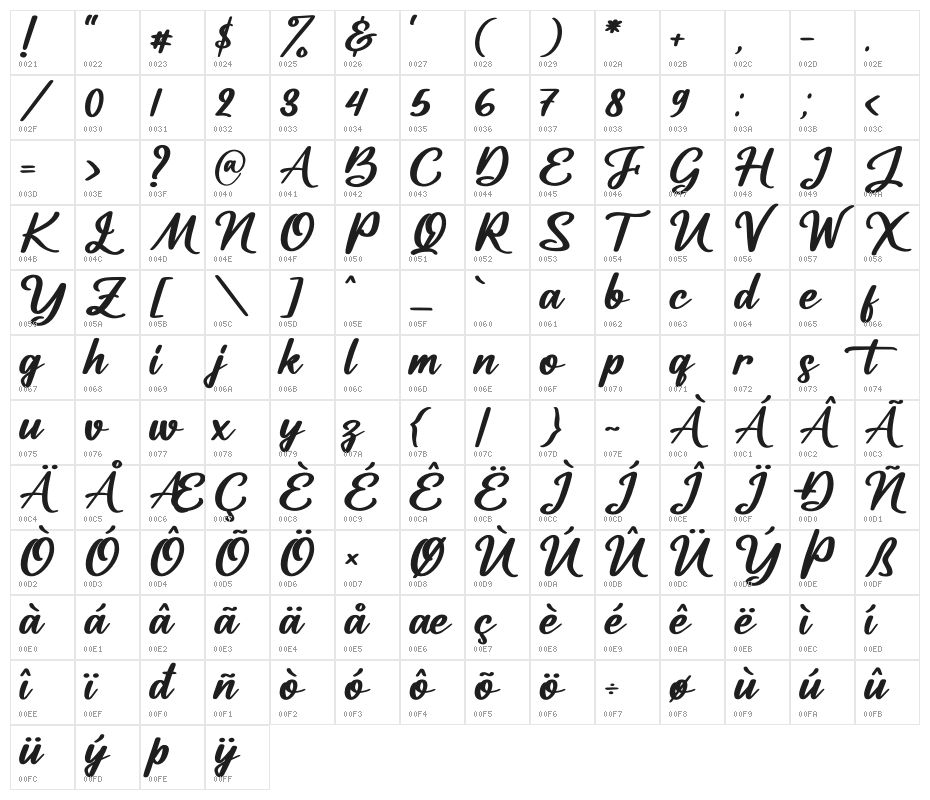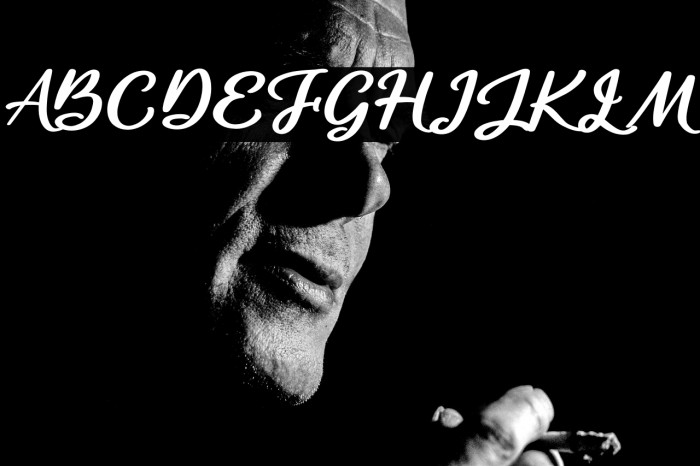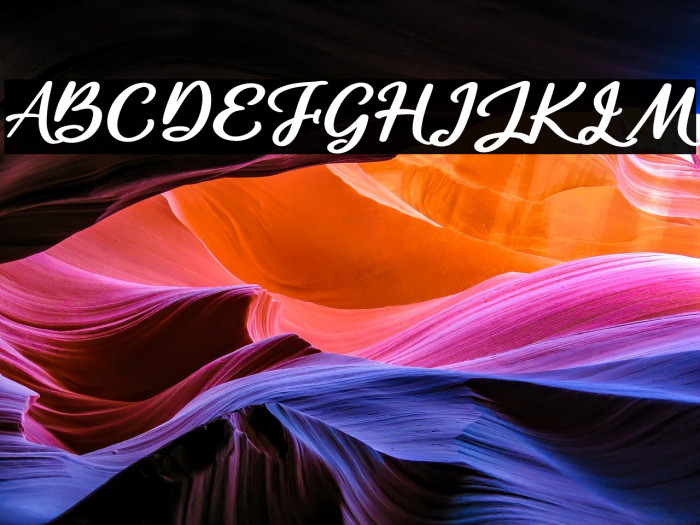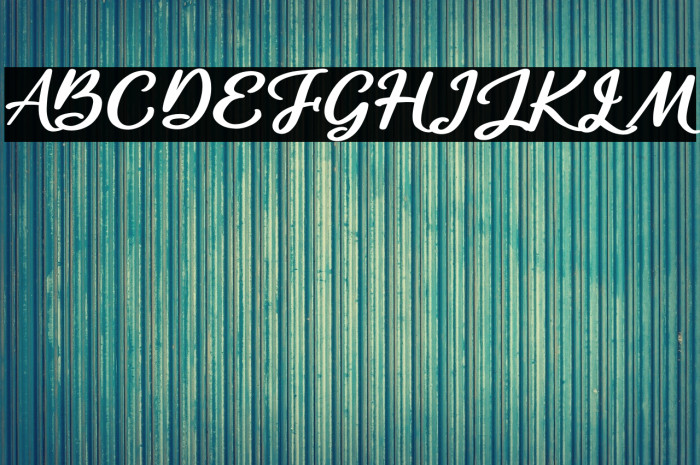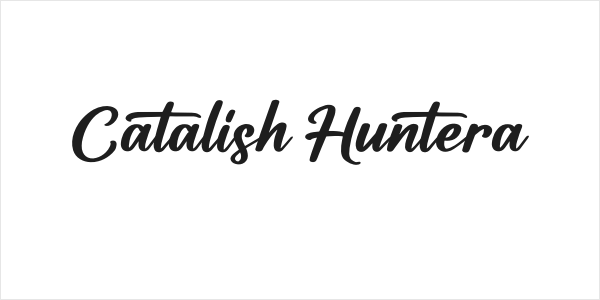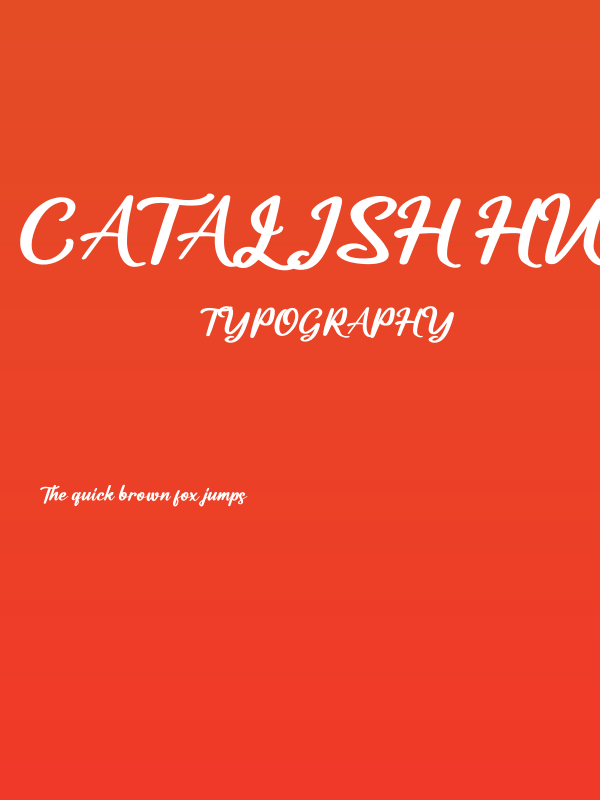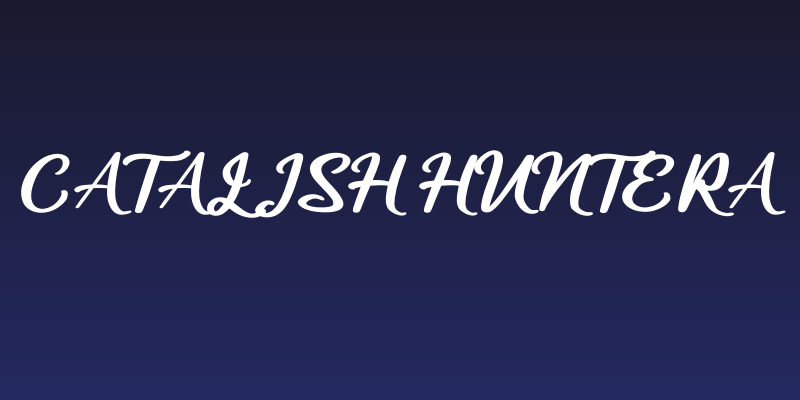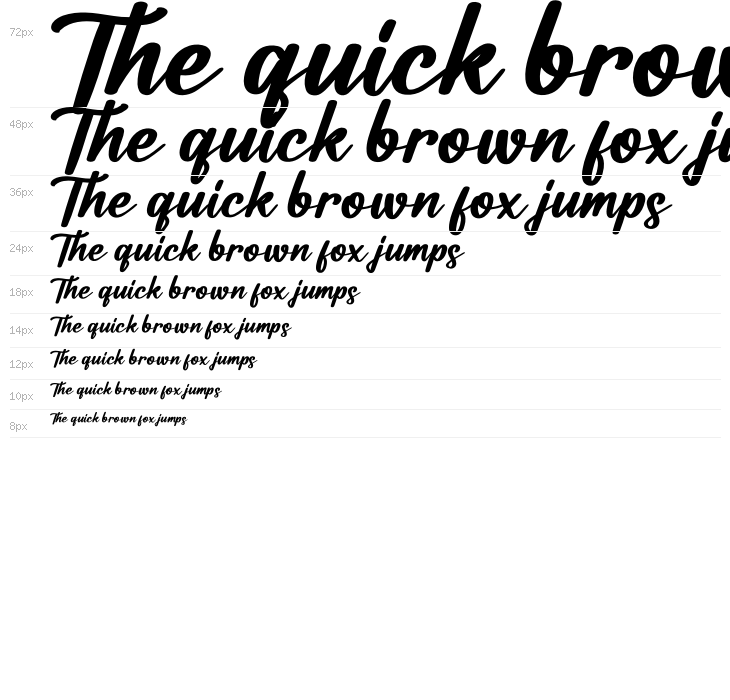
Catalish Huntera Font
Catalish Huntera Description
This font features a bold and expressive script style, characterized by its fluid, cursive strokes and dynamic flow. The uppercase letters exhibit a graceful elegance with sweeping curves and a consistent slant, while the lowercase letters maintain a cohesive rhythm with slightly exaggerated loops and tails. The numerals are robust and maintain the script's lively character, making them stand out. Special characters are thoughtfully integrated, ensuring versatility across various applications. The overall design conveys a sense of movement and energy, making it suitable for creative and decorative purposes.